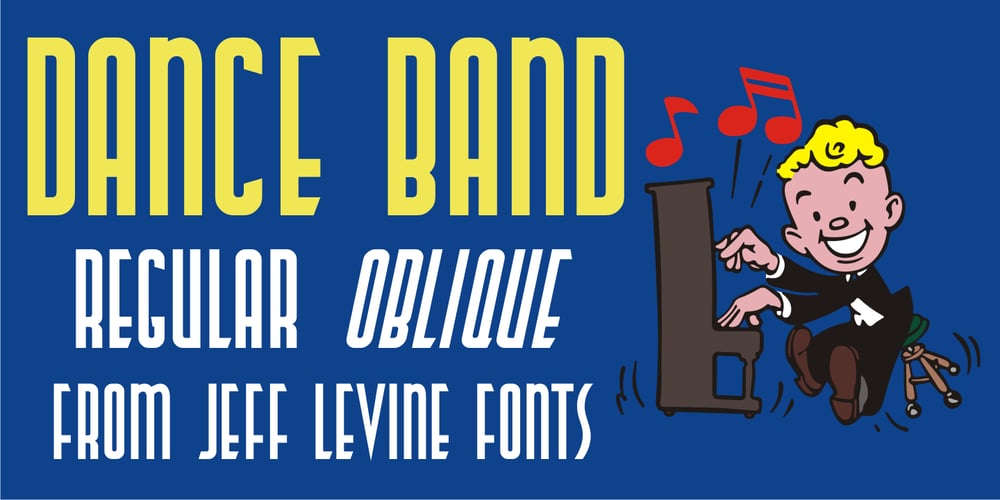
Dance Band JNL
Dance Band JNL font
Dance Band JNL Font Family was designed by Jeff Levine and published by Jeff Levine. Dance Band JNL contains 2 styles and family package options. Sheet music for the song “I’m the One That Loves You” has the title hand lettered in a narrow, Art Deco-influenced sans serif, which is now available digitally as Dance Band JNL in both regular and oblique versions. The 1937 composition was popularized by Tommy Dorsey and Sammy Kaye.